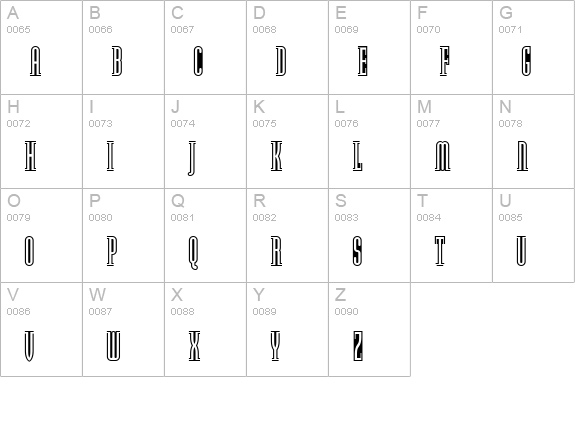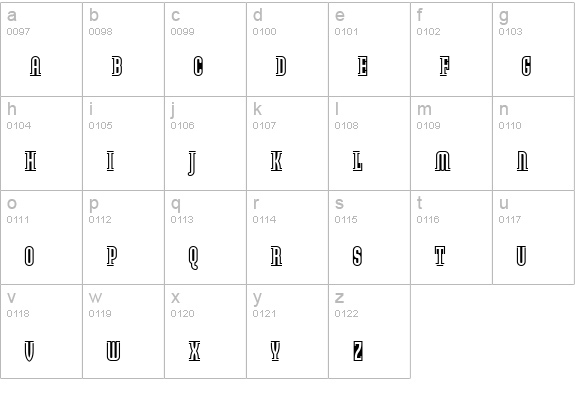
ModulaOutlinedSmallCaps Regular Font Details
ModulaOutlinedSmallCaps Regular is the standard, neutral variant in the ModulaOutlinedSmallCaps typeface family \xE2\x80\x94 well suited to general body text, paragraphs, and standard typographic work.
ModulaOutlinedSmallCaps Regular font is a stylish and modern typeface that combines the elegance of small caps with a unique outlined design. Its clean lines and sharp edges make it perfect for adding a touch of sophistication to any project. The small caps add a touch of class, while the outlined style gives the font a contemporary feel. This versatile font is ideal for a wide range of design projects, from branding and advertising to invitations and social media graphics. Its clean and readable design makes it perfect for both headlines and body text. Best of all, ModulaOutlinedSmallCaps Regular font is available for free download at FontsMarket.com. So, whether you're a designer looking to add a new font to your collection or just someone who appreciates high-quality typography, this font is a must-have. Download it today and elevate your designs with this elegant and modern typeface.